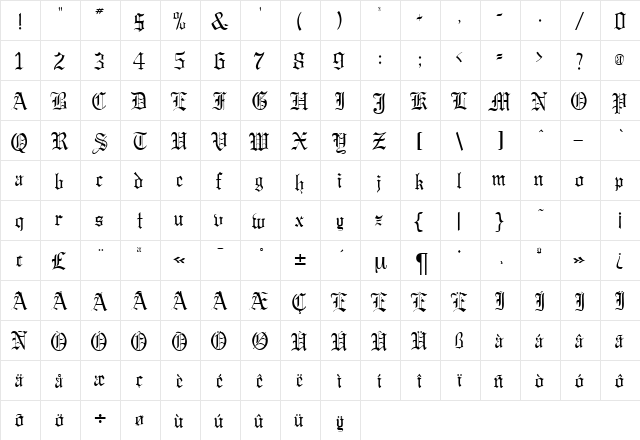
Gregorian DB Regular
Design Context for Gregorian DB Typeface
Gregorian DB is a composed and adaptable typeface that performs quietly and consistently across a wide range of design contexts.